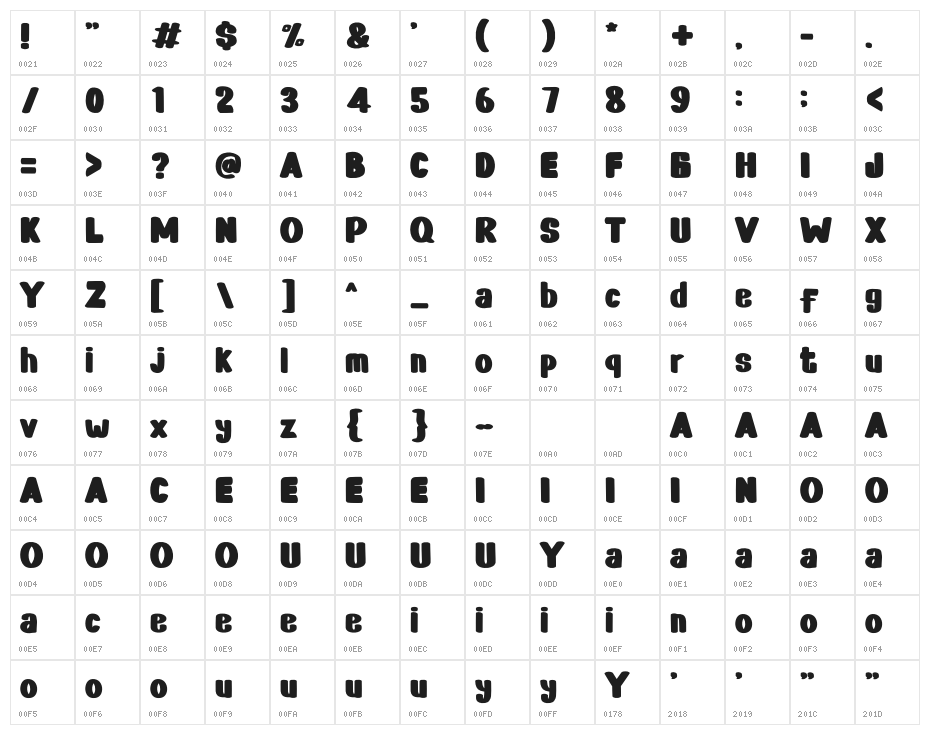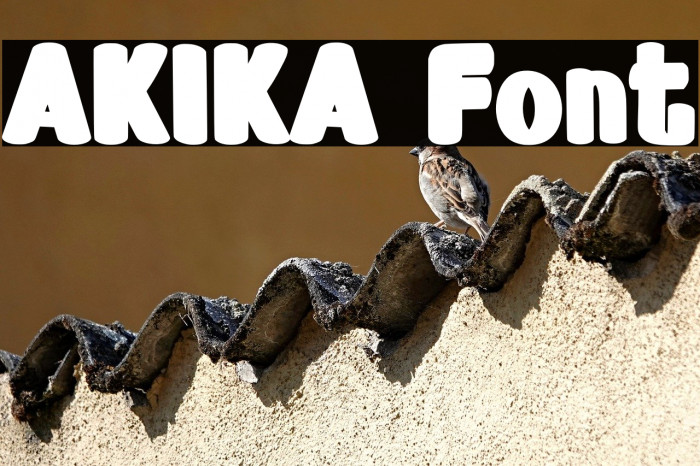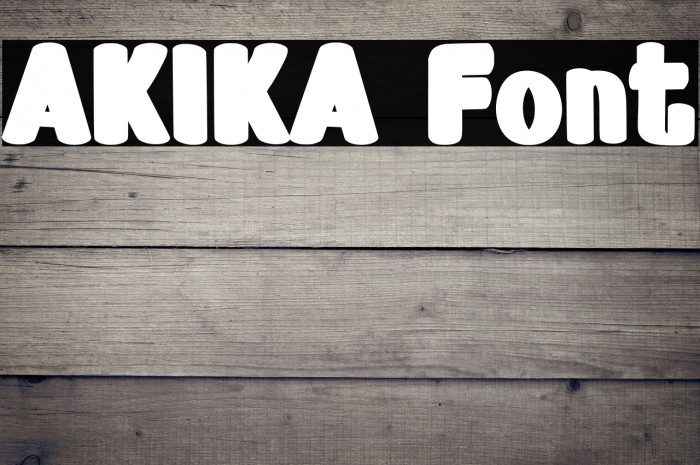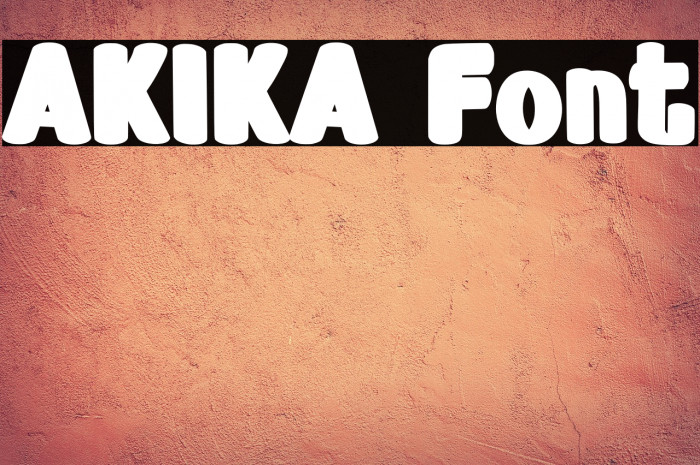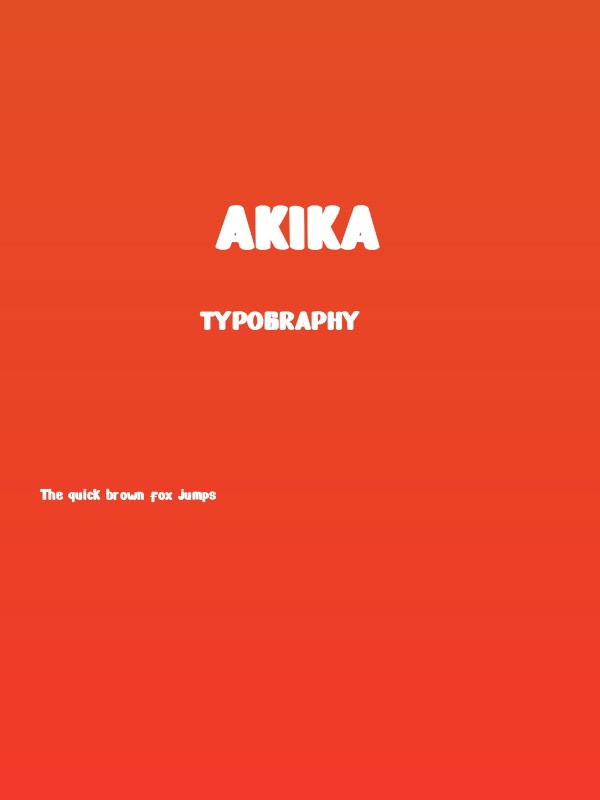
AKIKA Font
AKIKA Description
This font features a bold and playful design with rounded edges and a heavy weight, giving it a friendly and approachable appearance. The characters are uniformly thick, contributing to a cohesive and solid look. The uppercase and lowercase letters maintain a consistent style, with slight variations in curvature that add a touch of uniqueness. The numerals and special characters are designed to match the overall aesthetic, ensuring harmony across all elements. This font's thick strokes and rounded forms make it ideal for creating a strong visual impact.
Overall StylePlayful, Bold
Proposed ProjectsIdeal for children's books, playful branding, posters, and any project requiring a friendly and bold typeface.